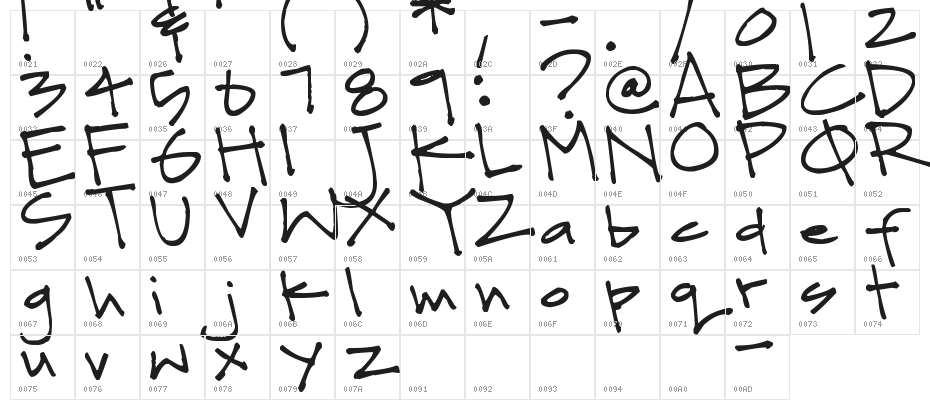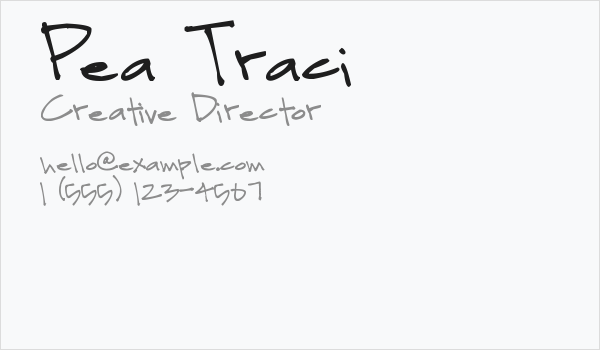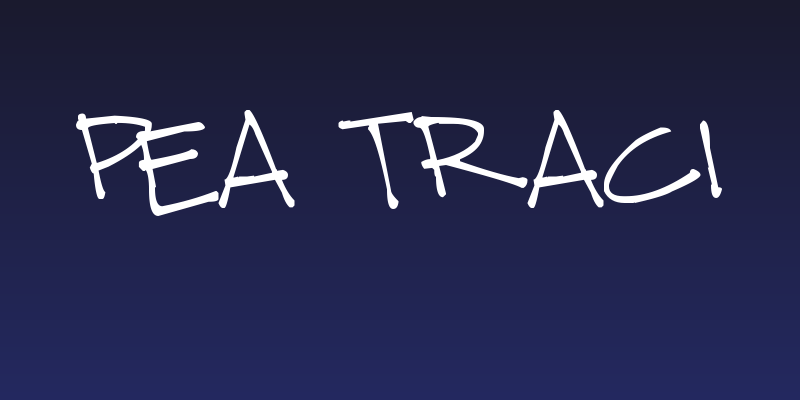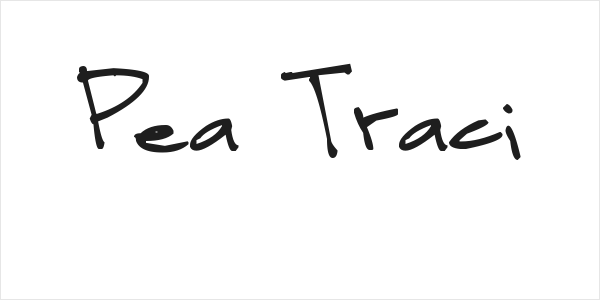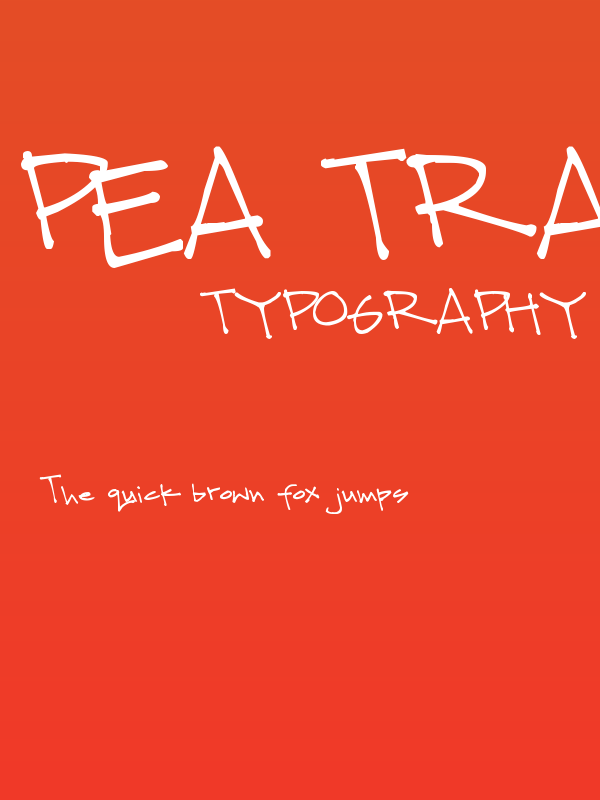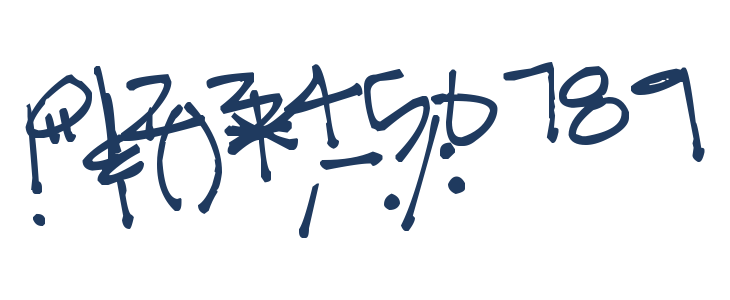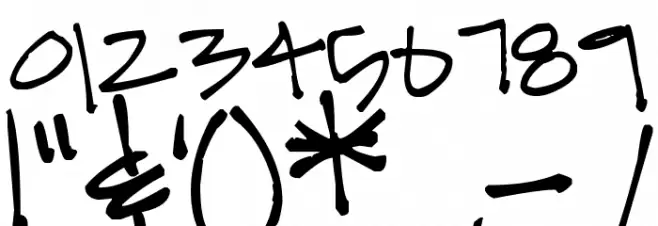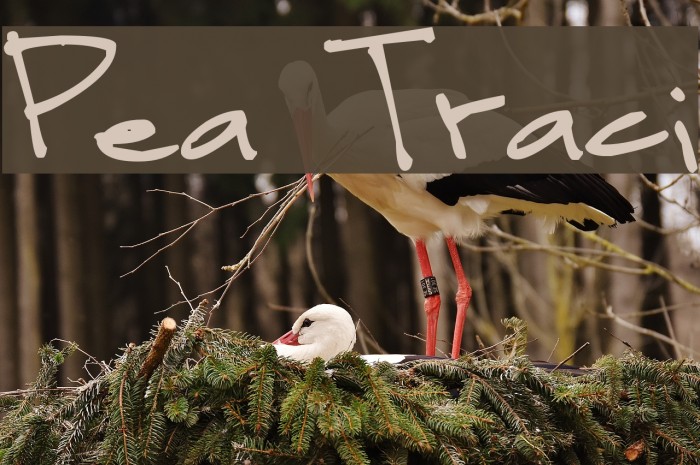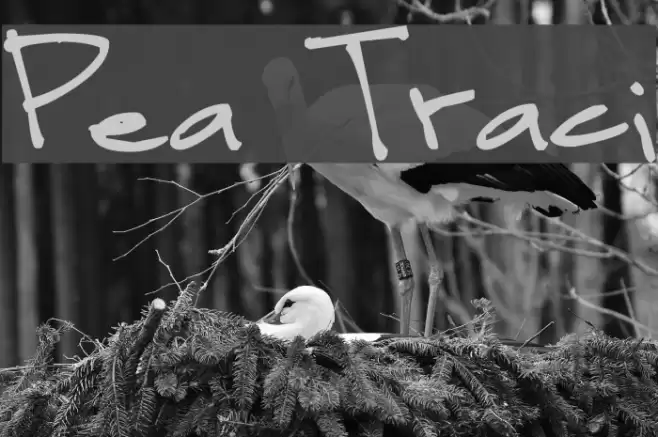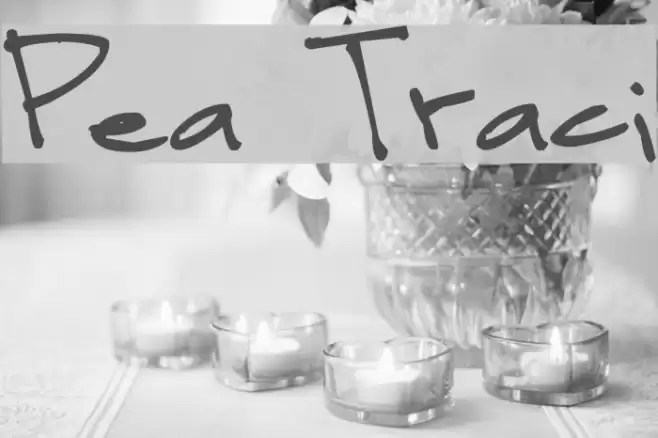
Pea Traci Font
Pea Traci Description
This font exudes a playful and informal vibe, characterized by its handwritten style. The letters are slightly irregular, giving it a personal and casual feel. The strokes are uneven, with a natural flow that mimics real handwriting. This font is perfect for projects that require a touch of personality and warmth. The uppercase and lowercase letters maintain a consistent style, while the numbers and special characters complement the overall aesthetic. The font's charm lies in its simplicity and the way it captures the essence of handwritten notes.
| Overall Style | Casual |
| Use Case | Headlines, Informal text, Personal projects |
| Proposed Projects | Ideal for greeting cards, personal blogs, informal invitations, and children's book illustrations. |